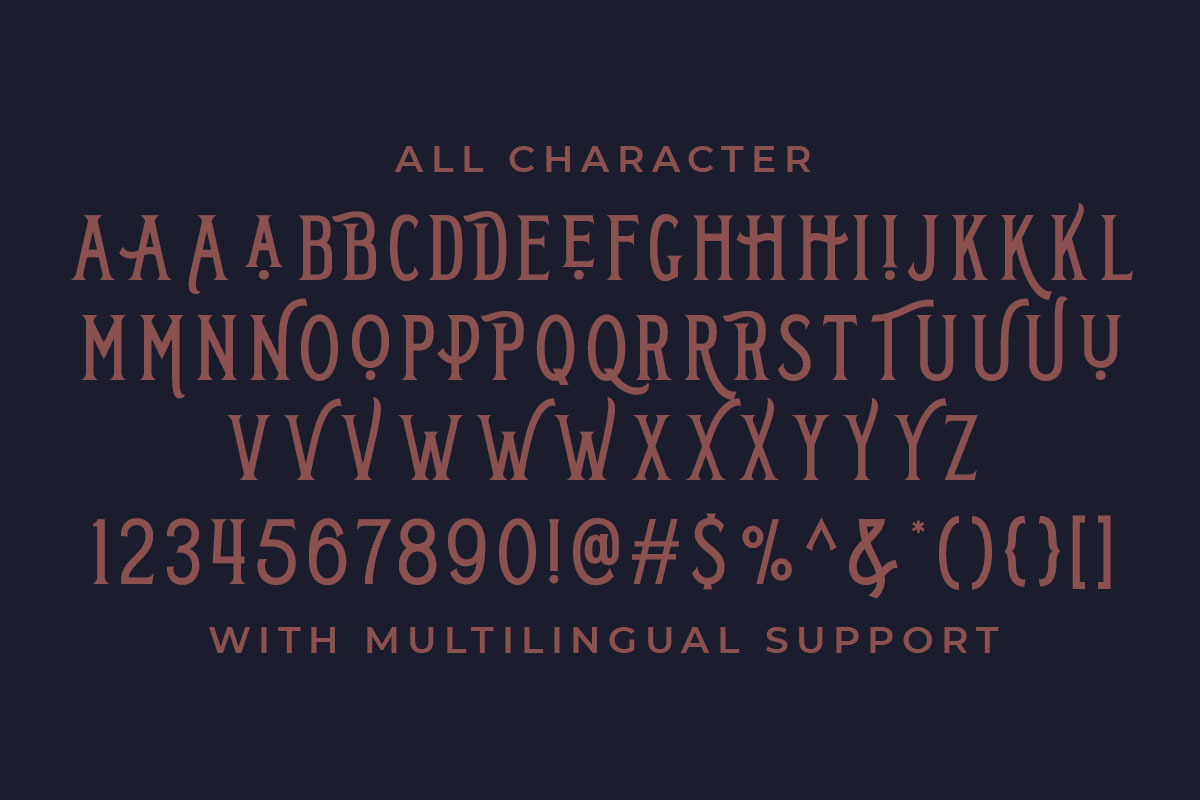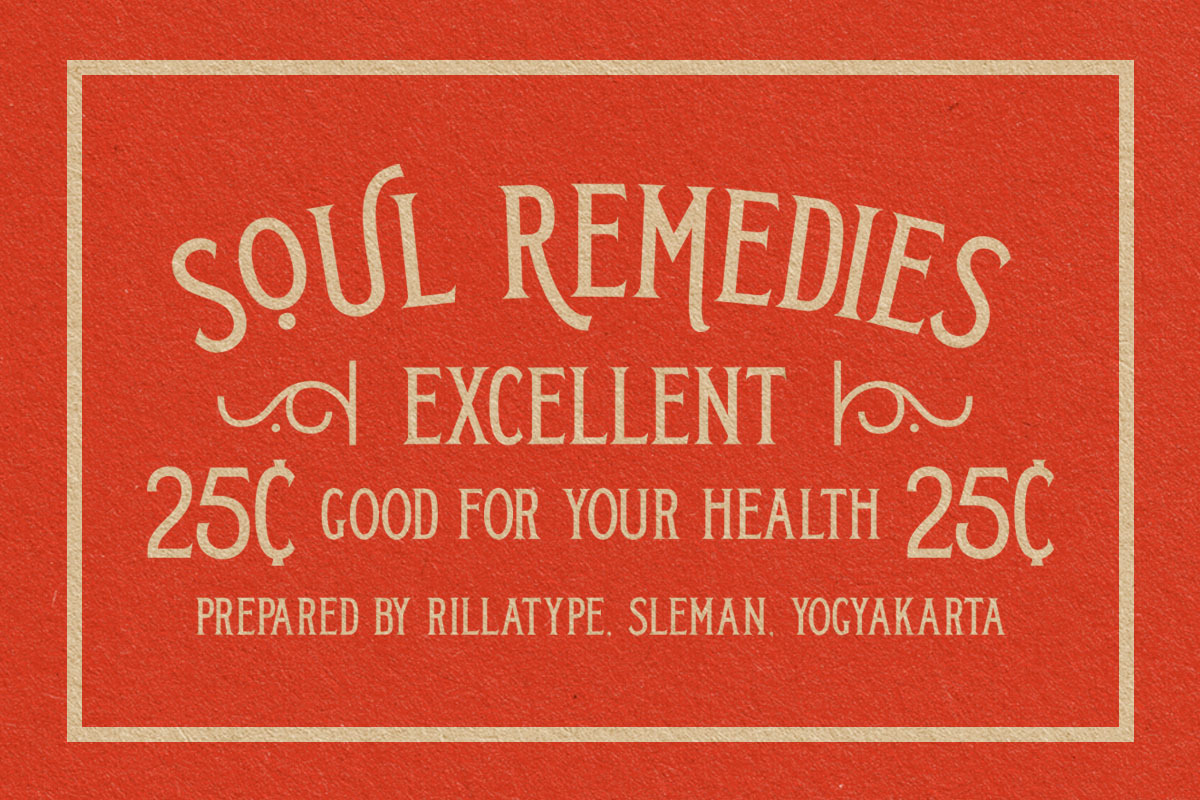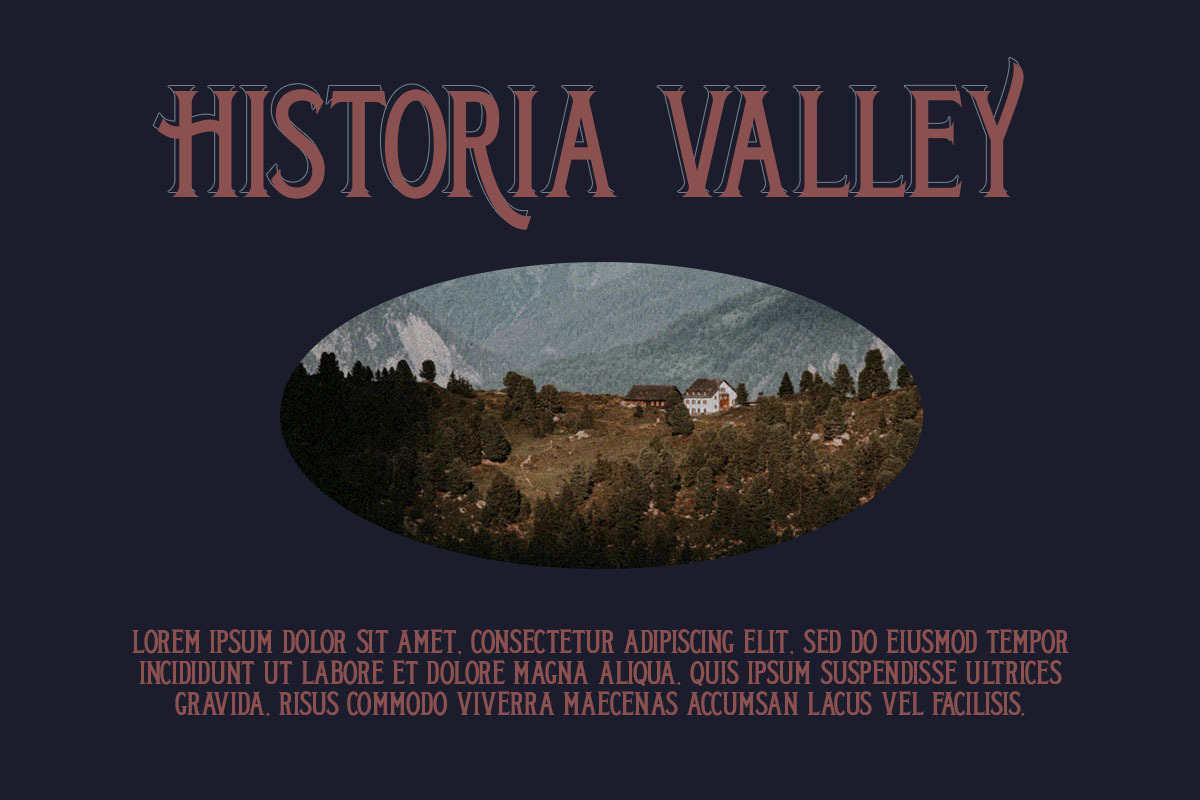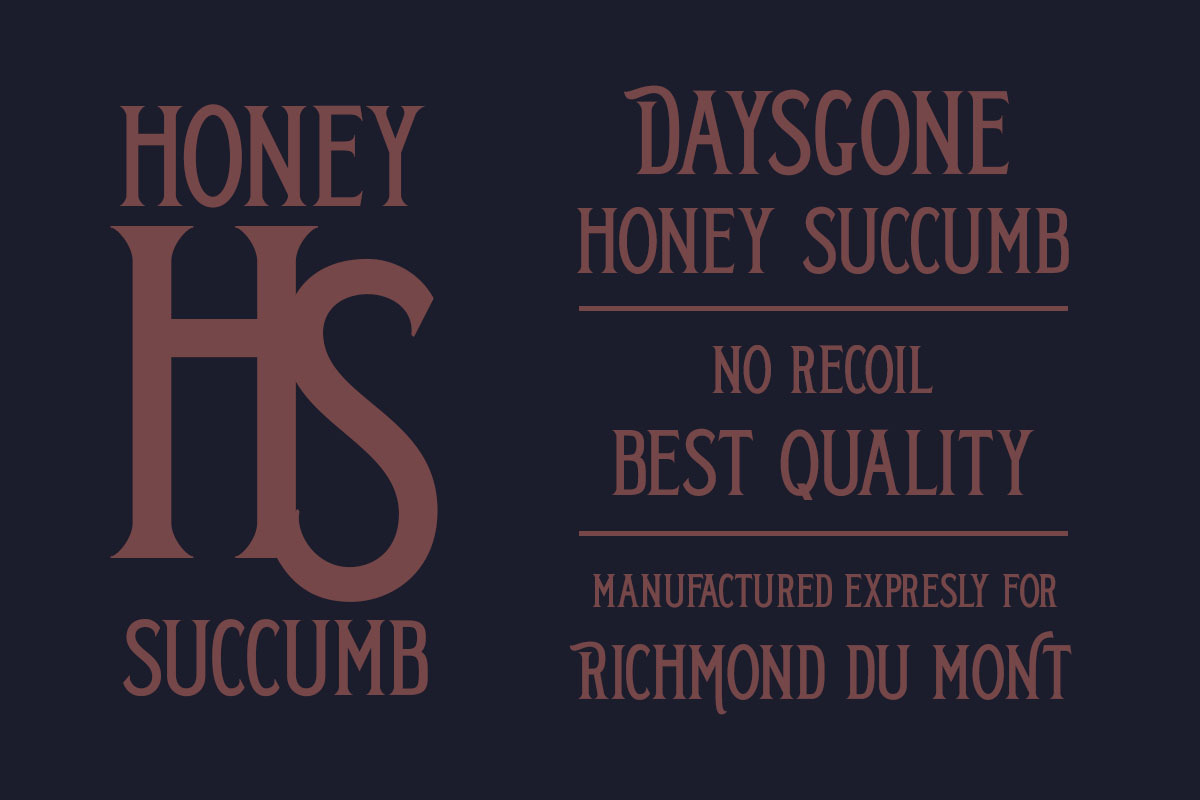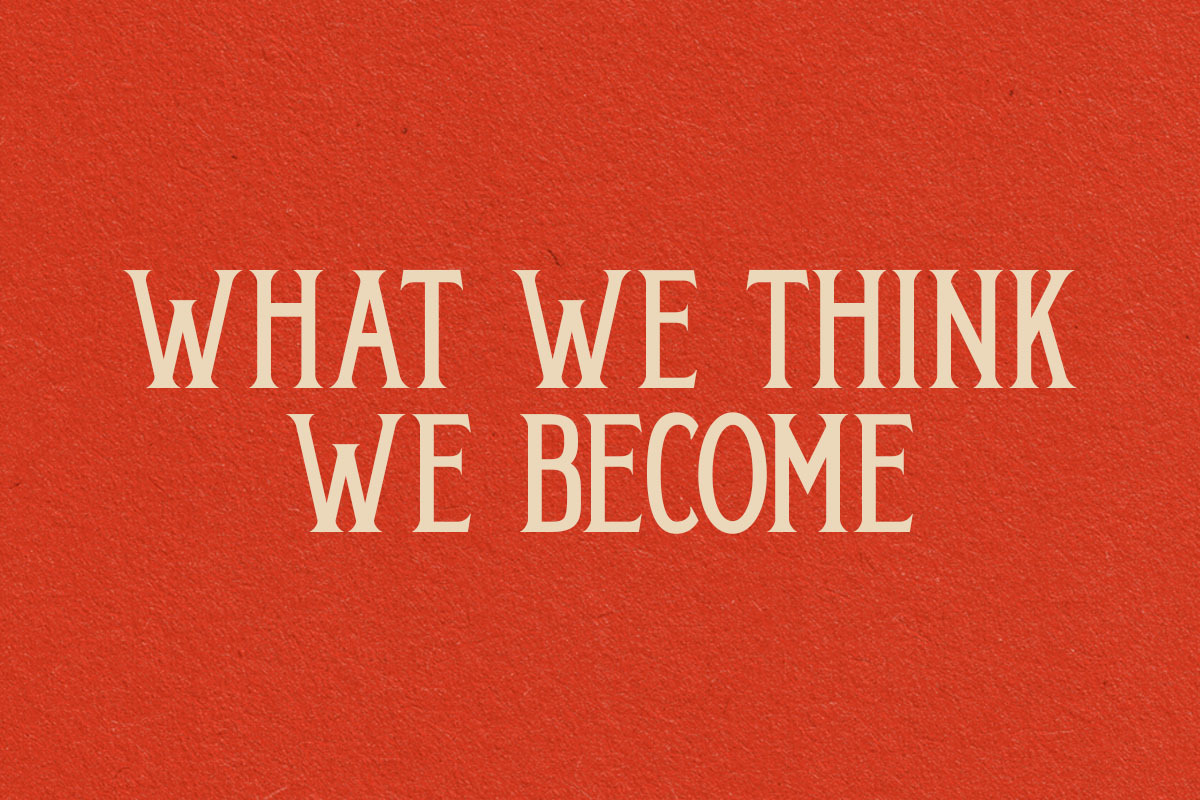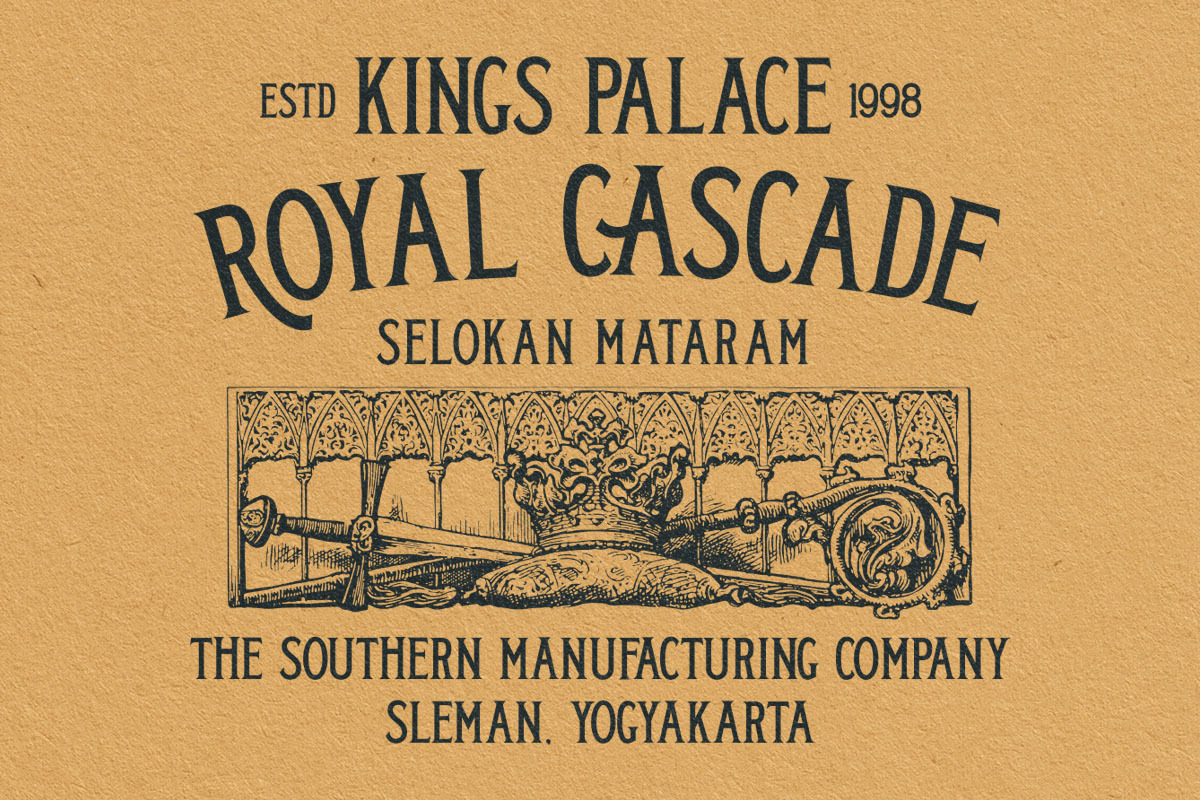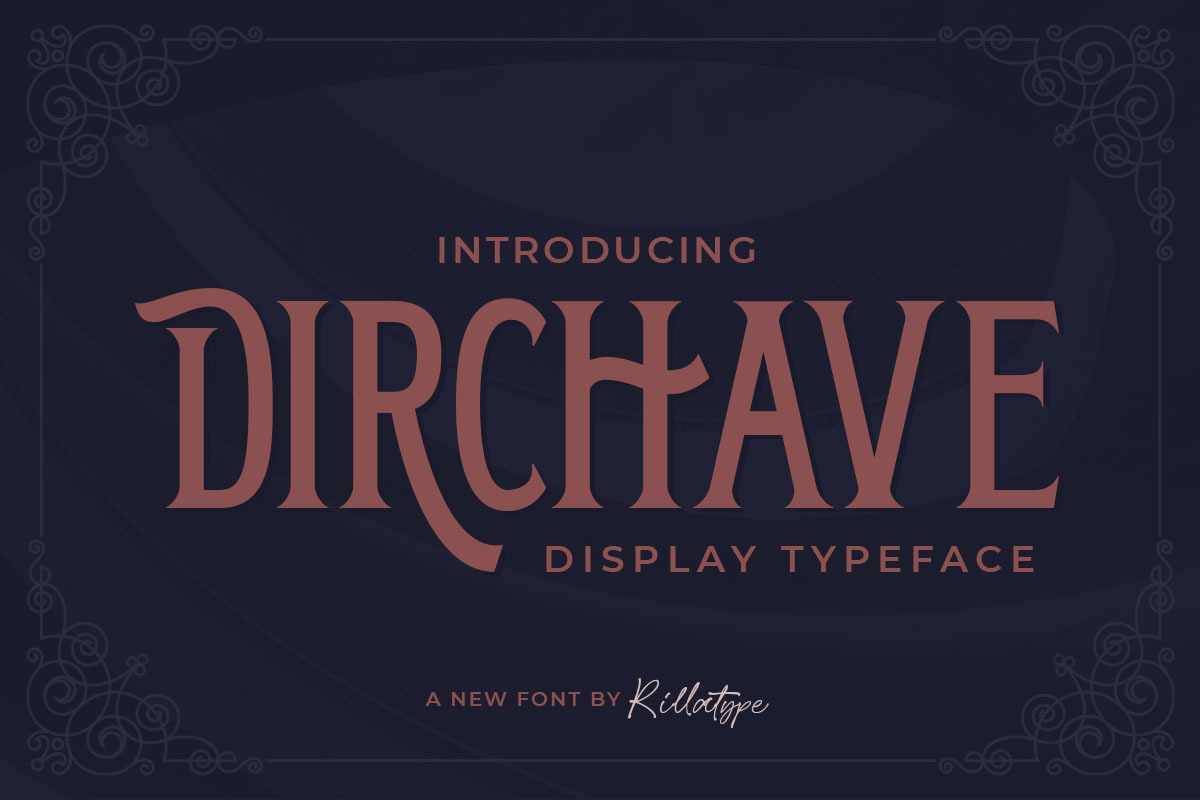
Dirchave - Display Typeface
Introducing, Dirchave, dirchave is a vintage inspired display font that is perfect for packaging, branding, headline, quotes, etc.
- Uppercase Font
- Punctuatuon
- Stylistic Alternate